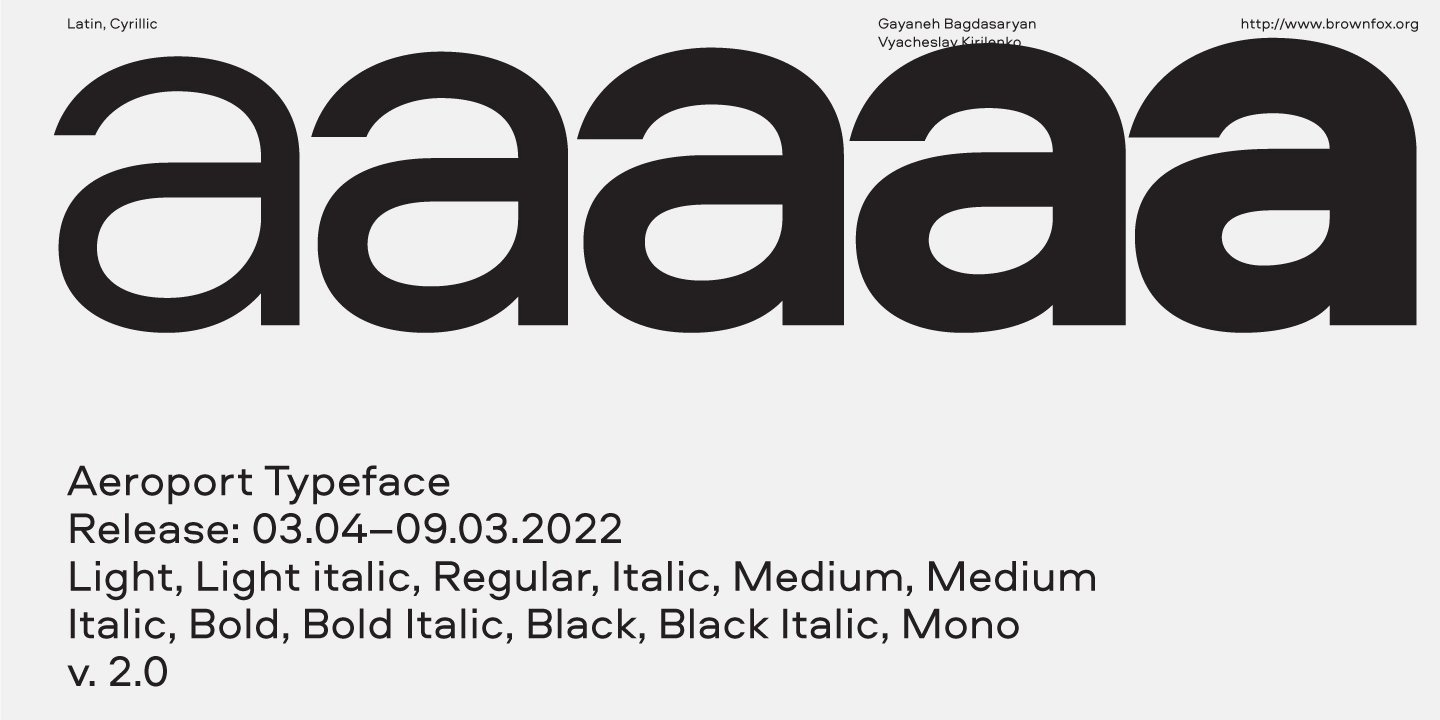
Aeroport Font
Aeroport Font is perfect for various design applications including aviation industry branding, airline company materials, airport terminal signage, travel agency promotions, aircraft manufacturing logos, pilot training academy communications, aerospace engineering presentations, flight simulator interfaces, aviation museum displays, and jet-setting lifestyle brands. This sophisticated typeface excels in projects requiring aviation excellence and aeronautical precision that captures the technological sophistication and global connectivity of modern aviation.
What makes Aeroport Font so exciting is its masterful embodiment of aviation precision and aeronautical sophistication through letterforms that suggest the streamlined efficiency of modern aircraft and the technological excellence of aviation engineering. The font features clean geometric construction that mirrors aircraft design principles, optimized proportions that ensure exceptional readability in high-speed environments, and distinctive character details that reflect the precision and reliability essential for aviation safety. Its distinctive aeronautical character and global appeal make it perfect for aviation brands seeking to communicate professionalism, technological advancement, and the seamless connectivity that defines modern air travel.
Aeroport Font family includes comprehensive weight options from light to black, along with matching condensed styles that provide complete typographic flexibility for aviation design systems. Each weight maintains the font's signature aeronautical character while offering clear hierarchy options for complex aviation communications. The family also features aviation-themed symbols, flight path indicators, and aerospace decorative elements that can be combined with the letterforms to create cohesive aviation industry design systems.
Aeroport Font stands out through its intelligent synthesis of aviation functionality with contemporary design sophistication that feels both professional and accessible. Its precisely engineered proportions and aeronautical details ensure exceptional performance across all aviation communication needs, while its global character adds international credibility that reflects the worldwide nature of modern aviation. From comprehensive airline branding to aerospace technical documentation, this font provides designers with tools to create communications that celebrate aviation excellence and demonstrate sophisticated understanding of aeronautical design through streamlined, flight-ready typography.